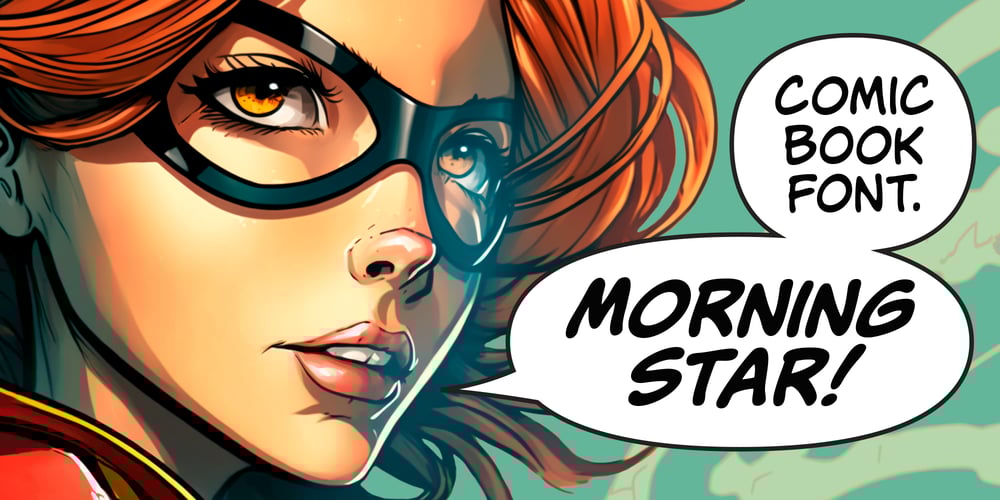
IA Morning Star Font Family was designed by Serhii Yarovyi and published by Invisible Art Studio. IA Morning Star contains 4 styles and family package options. IA Morning Star is a readable universal comic book dialogue font that adorns any book.The family includes Regular, Italic, Bold, and Bold Italic.Added a set of European characters, Cyrillic; auto ligatures to replace repeating characters, and contextual autoreplacing crossbar “I” in words like I, I’m, etc.